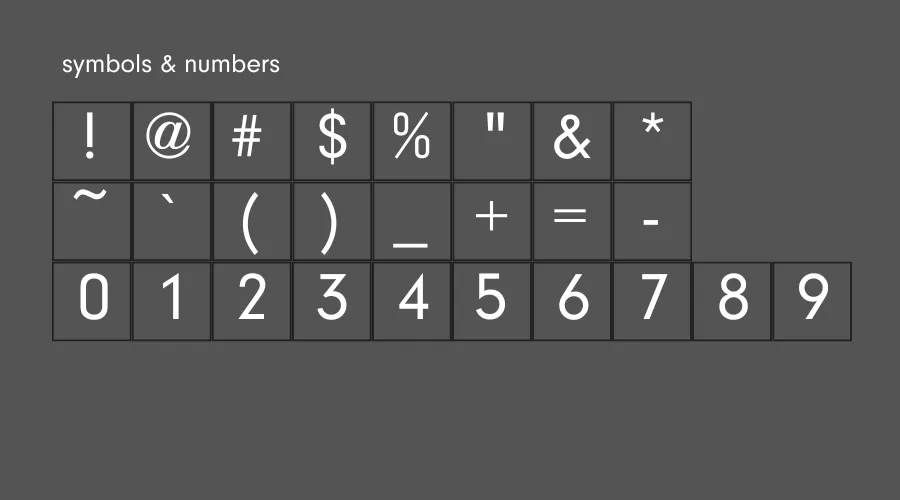
About Neuzeit Grotesk Font
You may mix this font with mason serif font and make attractive projects. This typeface contains 6 distinct styles: Book, Book Italic, Medium, Medium Italic, Bold, and Bold Italic. And also include the family package option. Each style has its own unique characteristics, making it easier to achieve the desired look.
The letterforms of Neuzeit Grotesk Font are optimized for legibility and clarity, with a subtly rounded shape that makes it easy to read at small sizes. This font may also be utilized for making social media posts, banners, logos, and branding purposes.
Neuzeit Grotesk Font View
- Neuzeit Grotesk Light
- Neuzeit Grotesk Regular
- Neuzeit Grotesk Bold
- Neuzeit Grotesk Black
What font goes well with Neuzeit Grotesk font?
There are many typefaces that go well with this typeface some of them are Playfair Display Font, SS Standard Font, Cooper Font, and helvetica font.